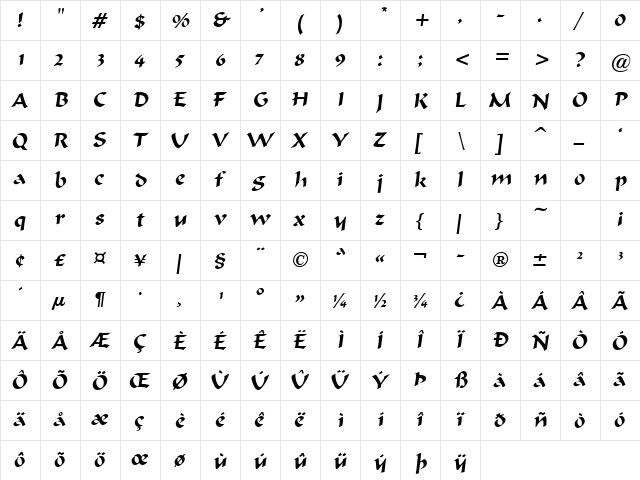
Jacinth Oblique
Design Context for Jacinth Typeface
Jacinth is a composed and adaptable typeface that performs quietly and consistently across a wide range of design contexts. Its italic angle brings a sense of urgency and motion to the letterforms.
Pro Tip: Try Jacinth for annotation and caption copy alongside an upright companion — the contrast in angle creates a dynamic but ordered typographic system.